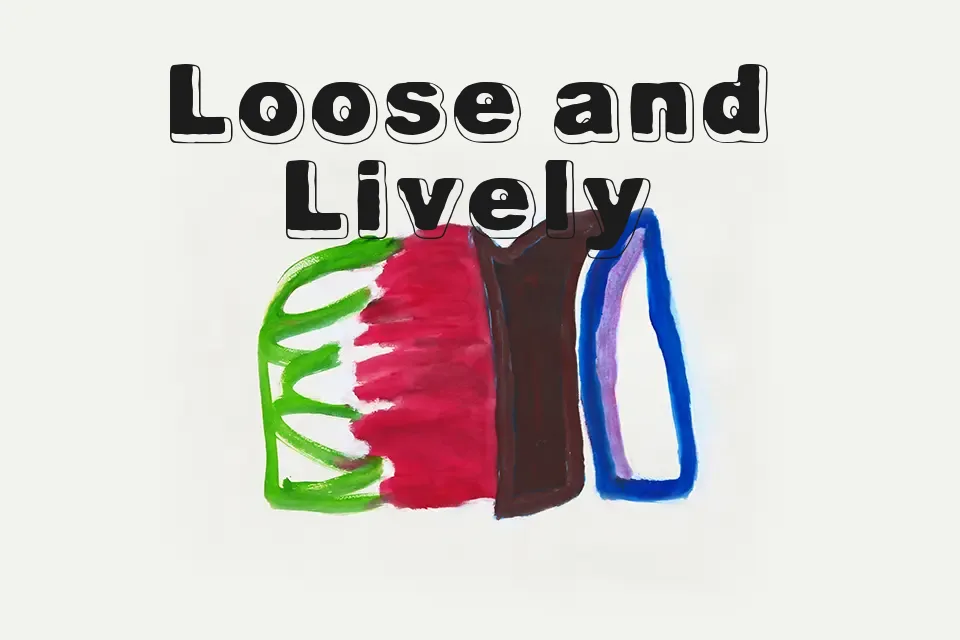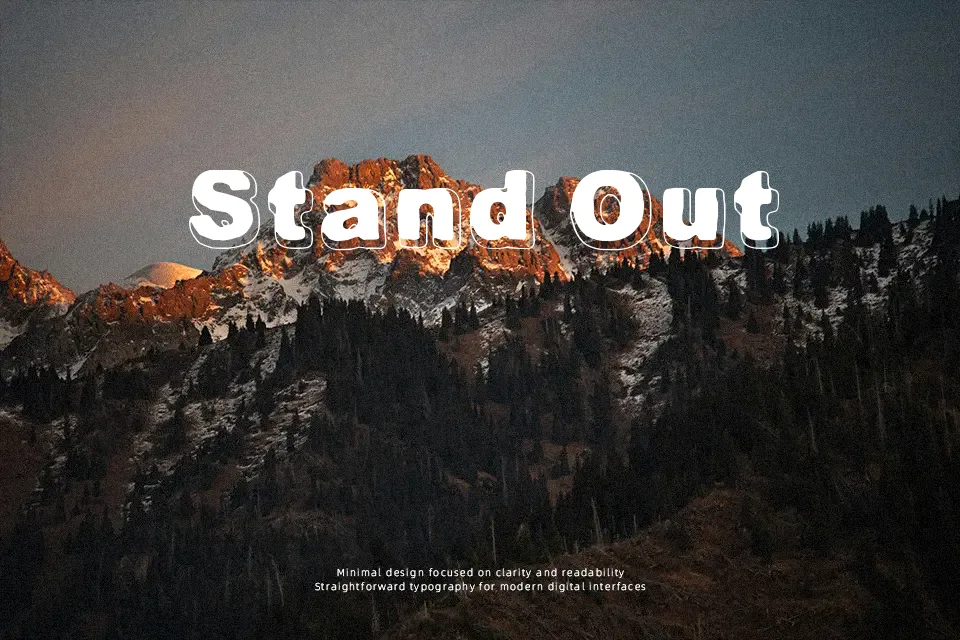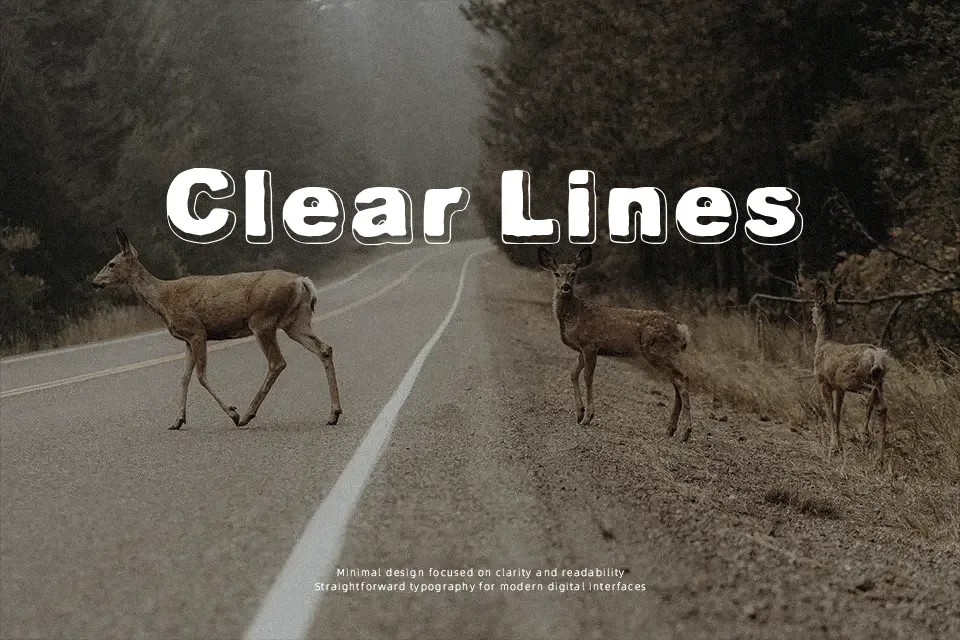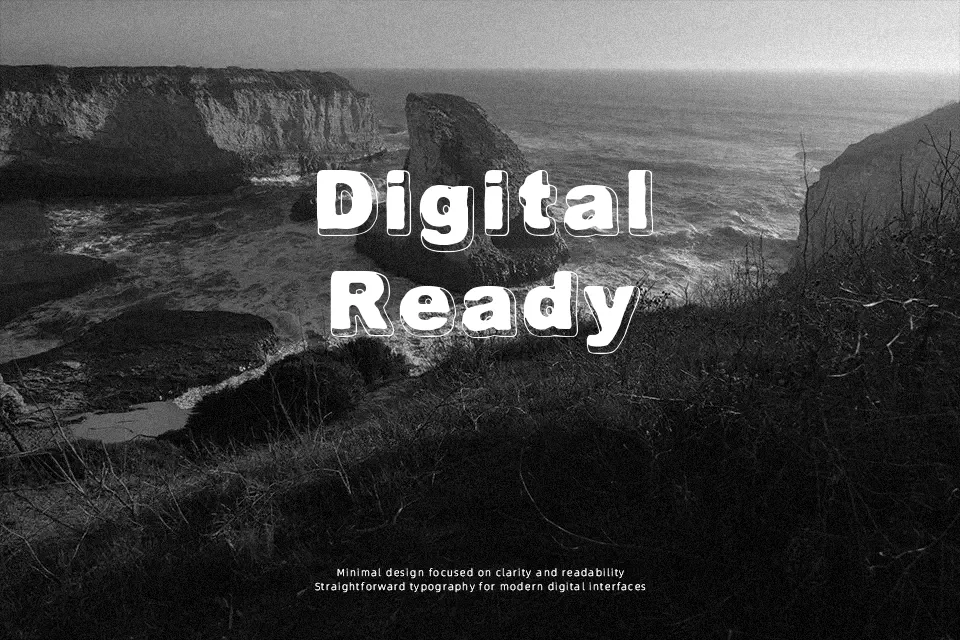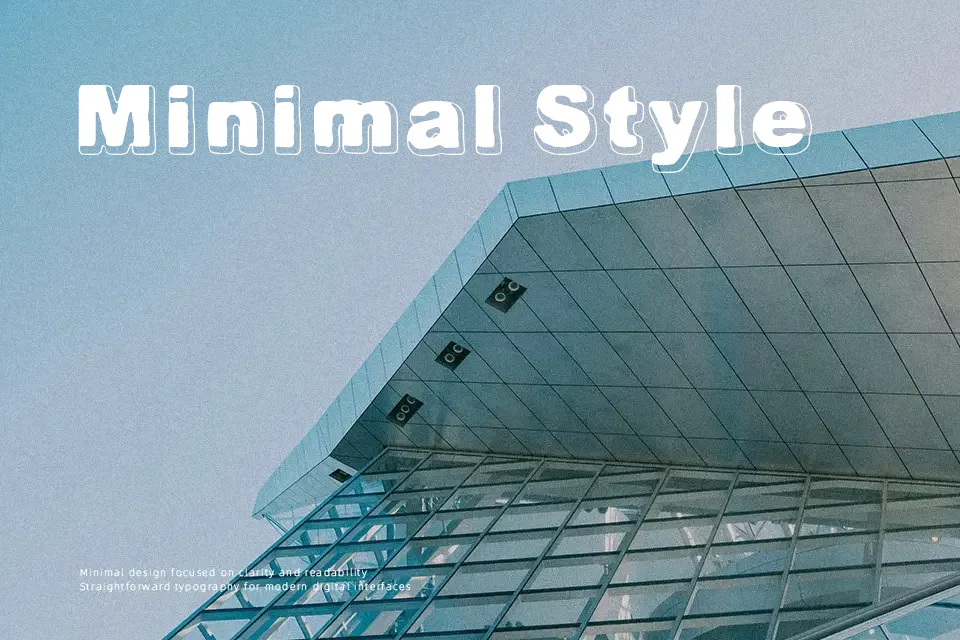
Always Been Right Font
Designed by Juha Korhonen
There’s nothing subtle about Always Been Right — and that’s the point. The letterforms are uniformly thick with low stroke contrast, and the built-in drop shadow gives each character immediate depth without any layering work on the designer’s end. That retro poster quality makes it a natural fit for event flyers, carnival-style signage, or a food truck brand trying to stand out at street level. Where it earns real marks is in short, high-impact headline treatments where the sheer weight creates a visual anchor. The limitation worth noting: the monospaced character spacing and shadow density make it poorly suited for anything beyond a few words — long titles start to feel congested, and small-size usage kills the shadow detail entirely.
– Retro-themed event posters and concert flyers
– Children’s product packaging and cover titles
– Food truck or carnival-style brand headers
– Short social media graphic headlines
– Body text or multi-line paragraph copy
– Corporate or formal brand applications
– Small-size usage where shadow detail collapses
– Layouts requiring tight, flexible kerning control
Perfect for headline, kids, and logo, with a bold and decorative style.